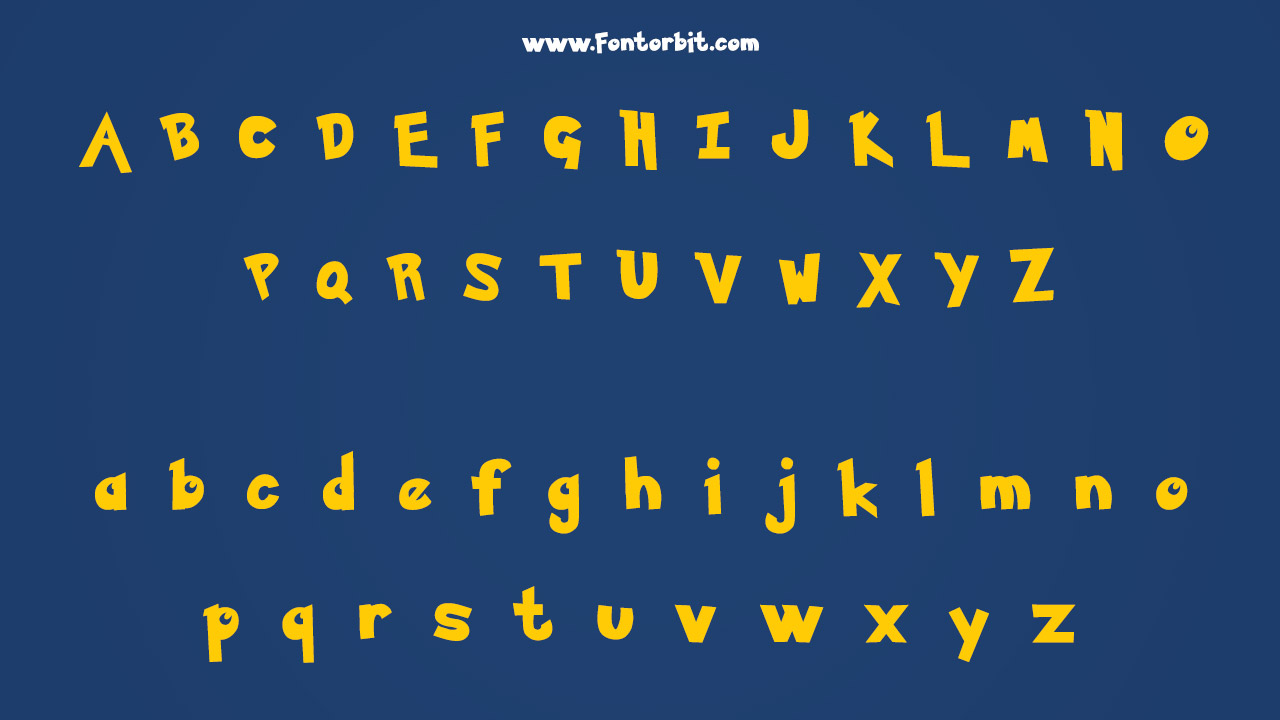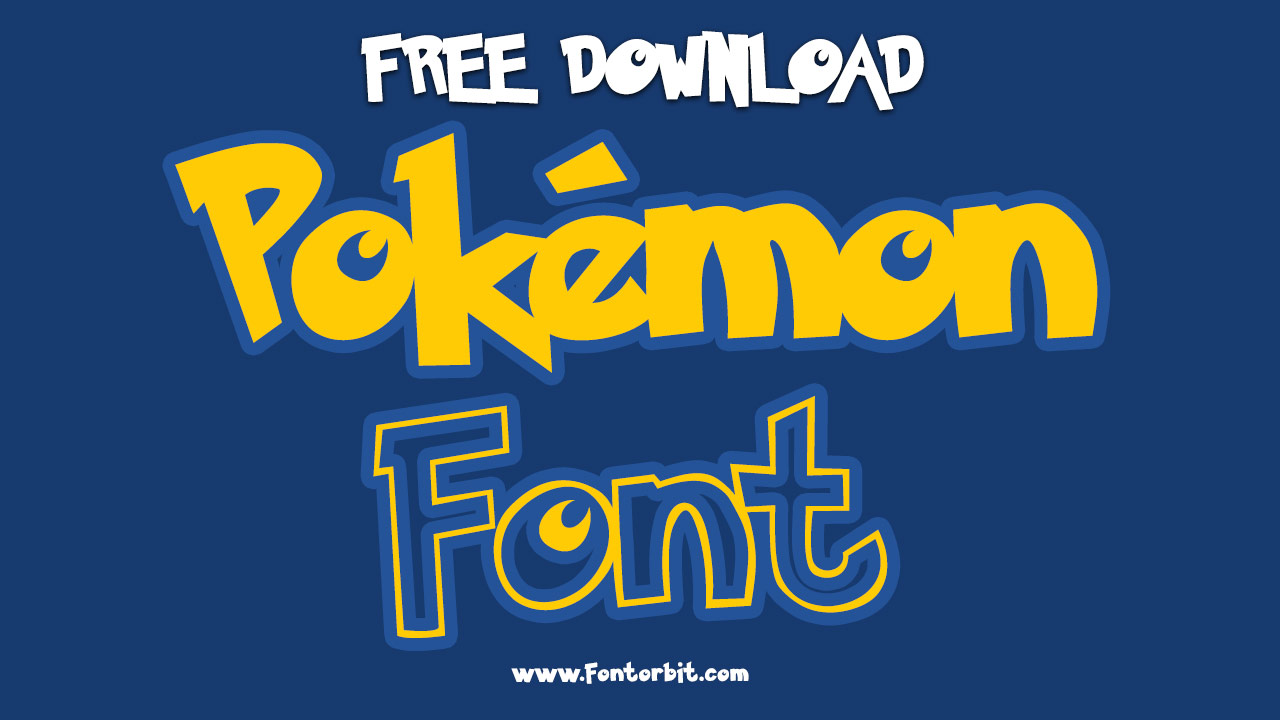
The Pokémon Font, often associated with the beloved Pokémon franchise, is a captivating typeface that brings a sense of nostalgia and adventure.
Designed by an anonymous creator, it is inspired by the iconic lettering used in the Pokémon logo. Since its early release, it has been widely published and shared among fans.
Pokémon Font Family Includes
The Pokémon Font family features a distinctive, playful style that captures the fun and excitement of the Pokémon world. Its bold, blocky letters reflect the iconic lettering used in the Pokémon series.
a. Pokemon Hollow
b. Pokemon Solid
Notable Uses Of Pokémon Font
People frequently use the Pokémon Font for fan-made Pokémon projects, themed party invitations, and merchandise. Its playful and recognizable style makes it a popular choice for anything related to Pokémon.
This font is ideal for:
- Fan art and projects related to Pokémon
- Themed party invitations and decorations
- Merchandise and promotional materials for Pokémon events
The Pokémon Font offers a fun and nostalgic way to celebrate the Pokémon universe. Whether you’re working on fan art, organizing a themed event, or just enjoying creative projects, this font adds a unique touch. Explore similar fonts if you’re looking for variations, and enjoy incorporating this playful typeface into your designs.